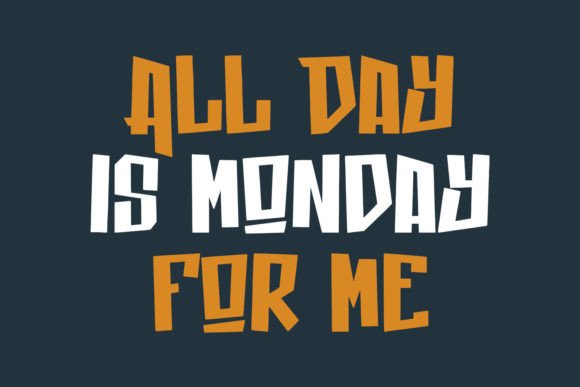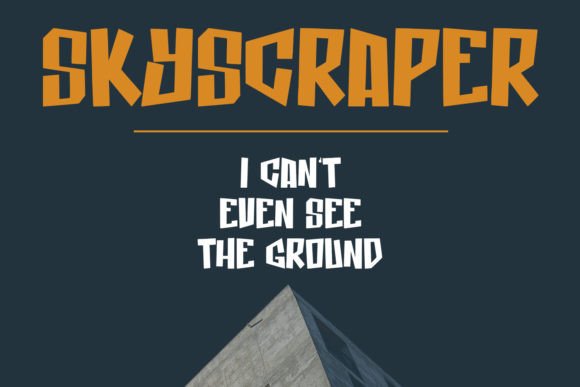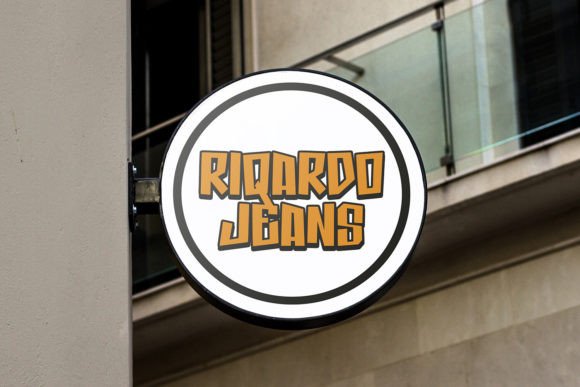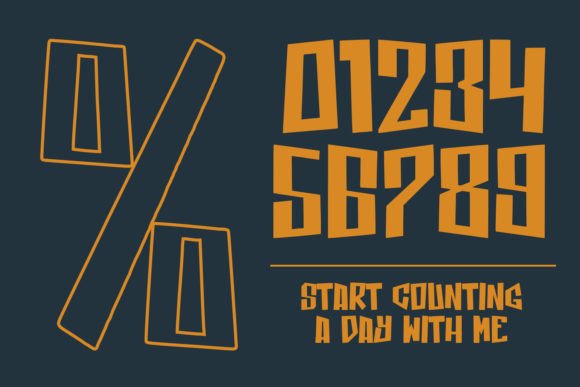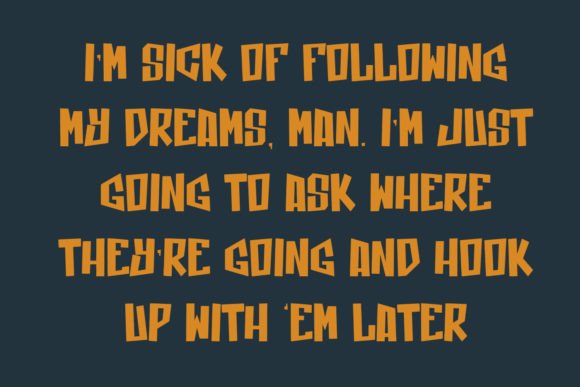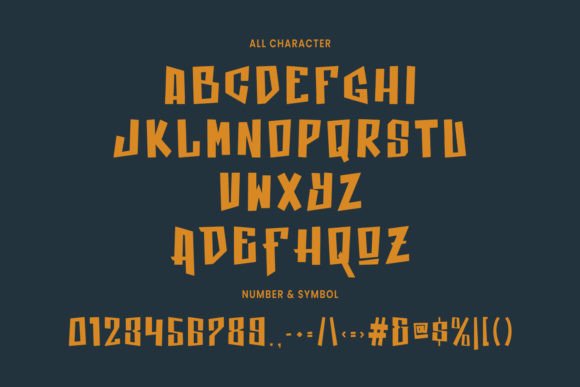
Introduction to Noorich Font Font
Fonts play a crucial role in design, and the Noorich Font font is a typeface that brings both character and versatility to any project. Whether you’re working on a branding project, a website, or a print design, the Noorich Font font offers a unique style that can elevate your work.
| π€ Author | Maulana Creative |
Introducing βNoorichβ β a cheerful display font that radiates positivity and charm.
With its lively and upbeat letterforms, Noorich is designed to bring a burst of joy to your projects Perfect for anything from playful invitations to vibrant branding, this font adds a touch of cheerfulness to your creative endeavors.
Key Features of Noorich Font Font
Why Choose Noorich Font Font?
The Noorich Font font is more than just a typeface β it’s a design tool that helps you communicate your message with style and clarity. Its unique character set and versatile design make it suitable for a wide range of applications, from elegant invitations to bold headlines.
With its carefully crafted letterforms and balanced proportions, the Noorich Font font ensures readability and visual appeal across all mediums.
What makes Noorich Font font special?
The Noorich Font font stands out with its unique design, exceptional readability, and versatility across various design applications.